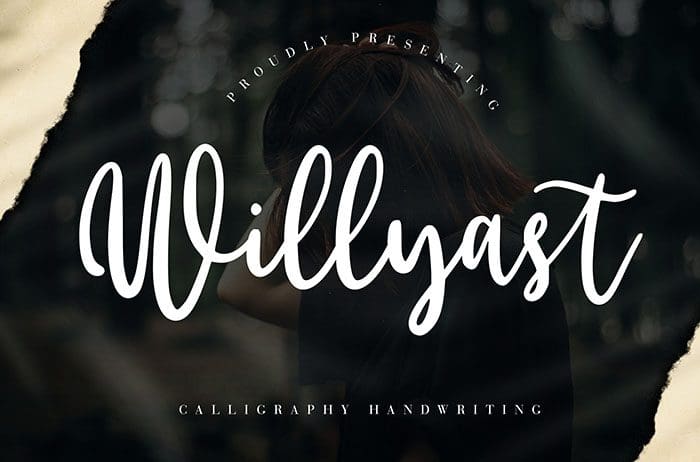
Willyast Script Font
Willyast is modern Script Font with smooth movement and elegant style. Perfect for branding projects, logo, wedding designs, photography, and more. Thanks to Creatype Studio for sharing this font! Take a look at this portfolio for more of his stunning fonts.